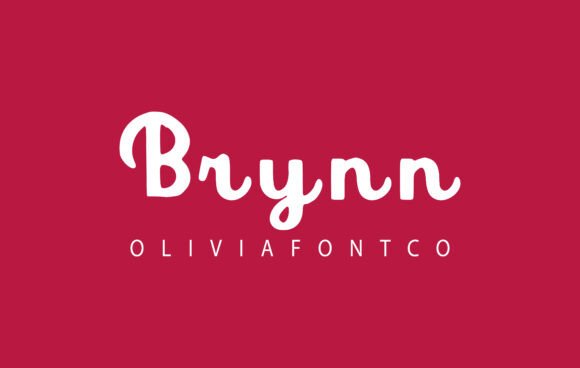
Brynn Font: The Ultimate Handwritten Font for Creative Projects
In the world of typography, fonts play a crucial role in bringing creative ideas to life. Among the numerous fonts available, Brynn Font stands out as an authentic handwritten font with a romantic touch. Designed to be a true favorite, Brynn Font has the potential to elevate your creative projects to new heights. In this article, we’ll explore the features, benefits, and uses of Brynn Font, and why it’s an excellent choice for your design needs.
What is Brynn Font?
Brynn Font is a carefully crafted handwritten font that exudes a sense of romance and elegance. Its authentic and unique design makes it perfect for a wide range of creative projects, from magazine headlines to social media graphics, branding, wedding invitations, and more. The font’s legibility and versatility make it an excellent choice for both title and body text.
Key Features of Brynn Font
- Authentic Handwritten Design: Brynn Font boasts an authentic handwritten design that adds a personal touch to your creative projects.
- Romantic Touch: The font’s romantic touch makes it perfect for projects that require a sense of elegance and sophistication.
- Legible and Versatile: Brynn Font is designed to be highly legible, making it suitable for both title and body text.
- Multipurpose: The font can be used for a wide range of creative projects, including magazine headlines, social media graphics, branding, wedding invitations, and more.
Benefits of Using Brynn Font
Using Brynn Font in your creative projects offers numerous benefits. Here are a few:
- Unique and Creative: Brynn Font’s authentic handwritten design sets it apart from other fonts, making your projects stand out from the crowd.
- Elegant and Sophisticated: The font’s romantic touch adds an air of elegance and sophistication to your projects, making them perfect for high-end designs.
- Time-Saving: With Brynn Font, you can create professional-looking designs in no time, saving you time and effort.
- Easy to Read: The font’s high legibility ensures that your message is conveyed clearly and effectively.
Uses of Brynn Font
Brynn Font is a versatile font that can be used for a wide range of creative projects, including:
- Magazine Headlines: Use Brynn Font to create eye-catching headlines that grab attention.
- Social Media Graphics: Add a touch of elegance to your social media graphics with Brynn Font.
- Branding: Use Brynn Font to create a unique and recognizable brand identity.
- Wedding Invitations: Add a romantic touch to your wedding invitations with Brynn Font.
- Cards and Stationery: Use Brynn Font to create beautiful and elegant cards and stationery.
Tips for Using Brynn Font
Here are some tips for using Brynn Font effectively:
- Use it Sparingly: Use Brynn Font sparingly to create emphasis and add visual interest to your designs.
- Pair it with Other Fonts: Pair Brynn Font with other fonts to create a unique and visually appealing design.
- Experiment with Colors: Experiment with different colors to find the perfect combination that complements Brynn Font.
- Keep it Simple: Keep your design simple and clean to let Brynn Font shine.
- What is Brynn Font? Brynn Font is an authentic handwritten font with a romantic touch.
- What is Brynn Font used for? Brynn Font can be used for a wide range of creative projects, including magazine headlines, social media graphics, branding, wedding invitations, and more.
- Is Brynn Font legible? Yes, Brynn Font is designed to be highly legible, making it suitable for both title and body text.